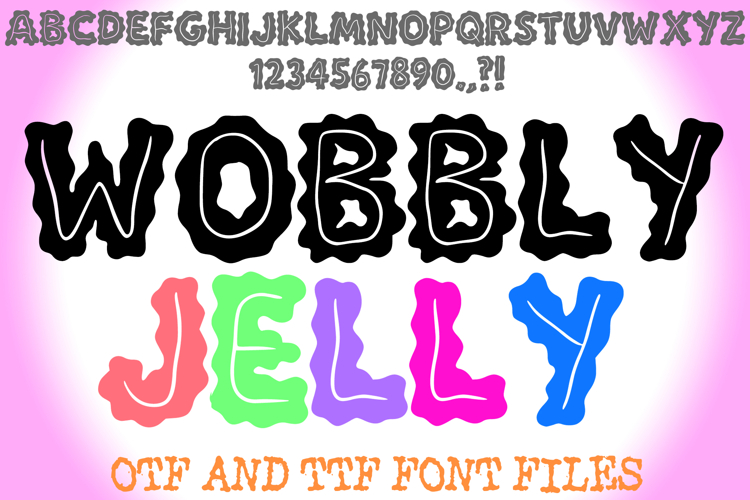
Wobbly Jelly font bursts with playful energy and quirky charm, featuring fluid, uneven letterforms that mimic the soft, bouncy texture of jelly. With its bold outlines and organic shapes, it creates a dynamic, eye-catching style perfect for posters, children’s books, logos, party invitations, and fun product packaging.
Its unique wavy strokes and vibrant personality make it versatile for both digital and print projects, where creativity and a lively tone are key. Wobbly Jelly stands out with its joyful design, bringing a sense of movement and fun to any composition.